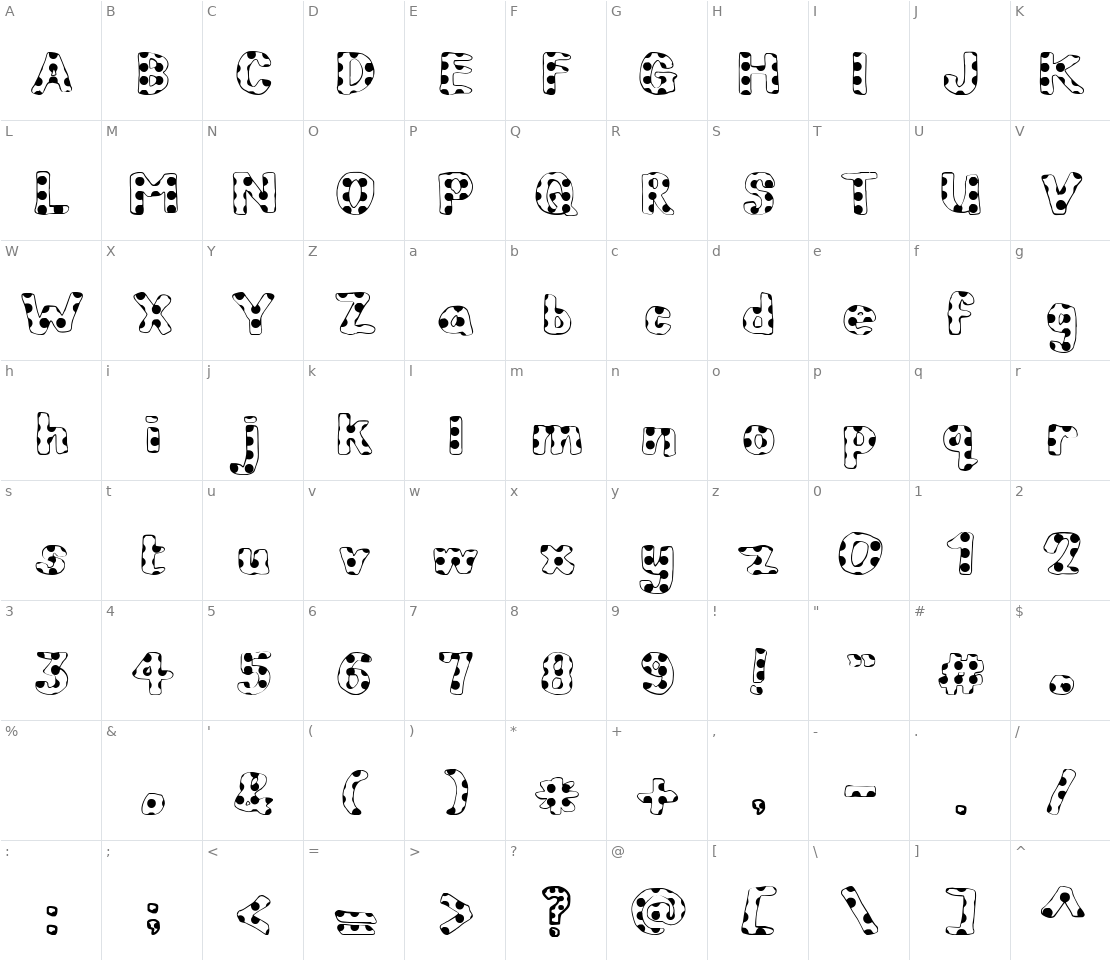
Children in Need
Children in Need is a playful novelty face from KiddieFonts with spotted, dotted letterforms that give every character a cheerful, confetti-like texture. The whimsical patterning and loose construction make it feel like something from a children's TV broadcast or charity campaign, best kept to headlines and display use where the decorative detail stays visible and fun.